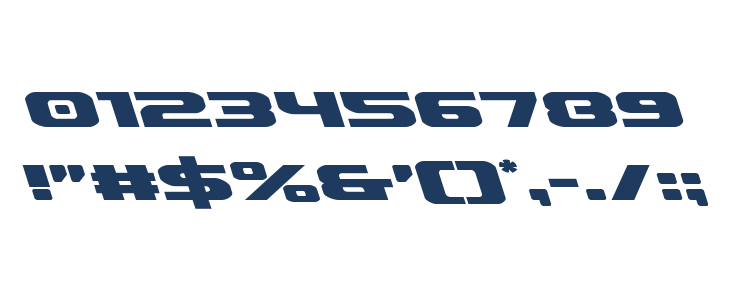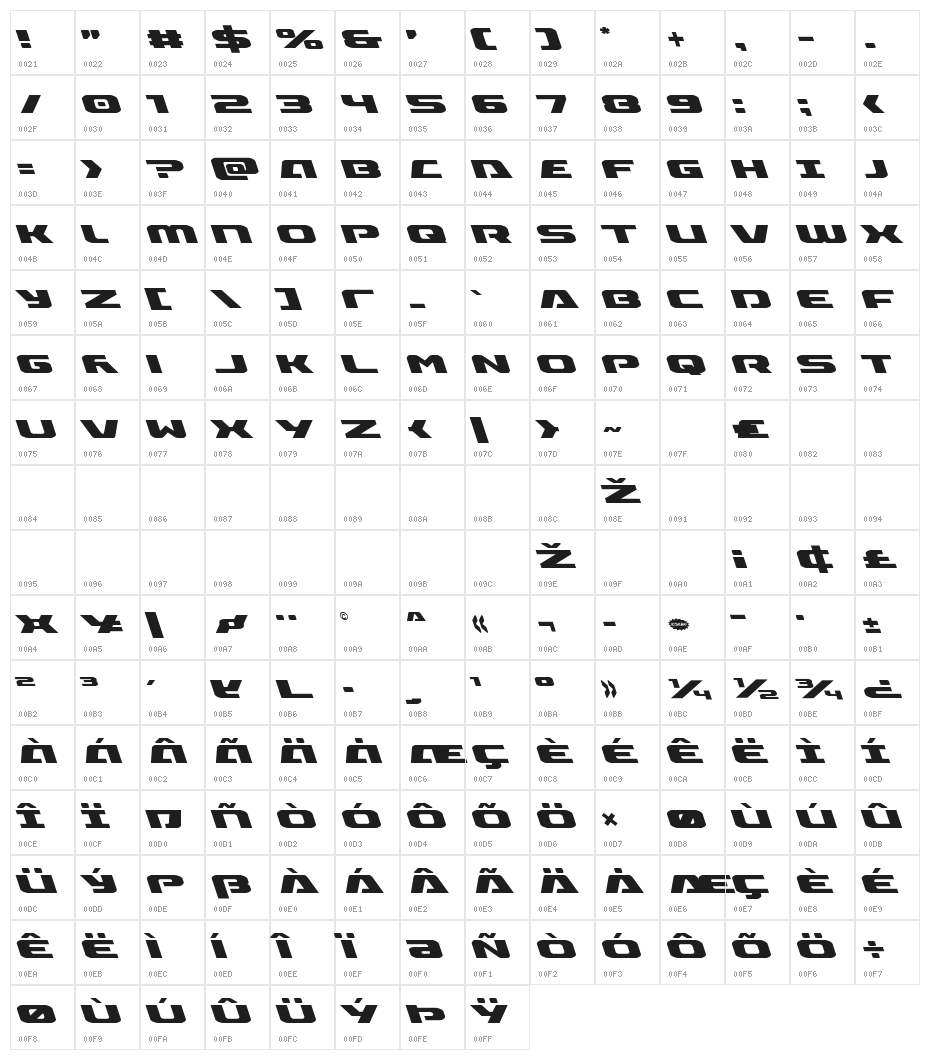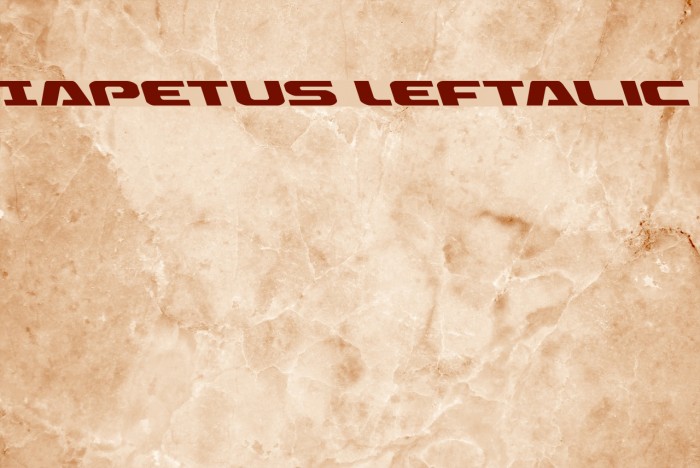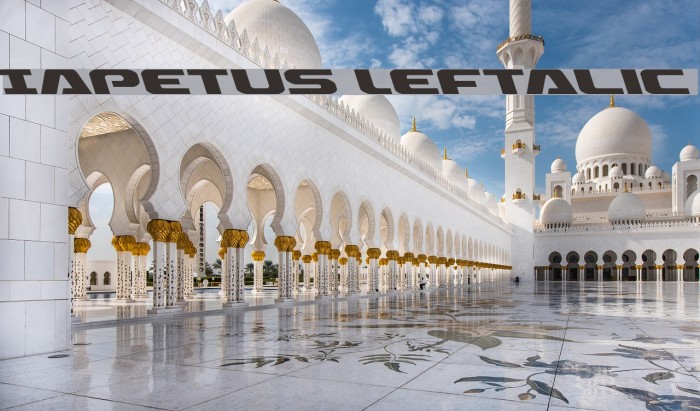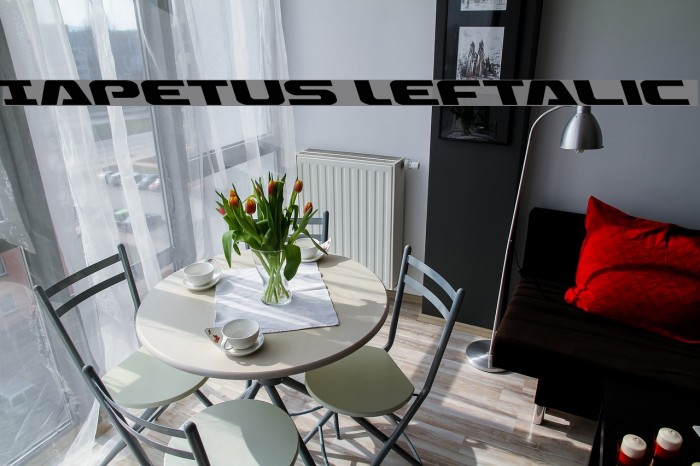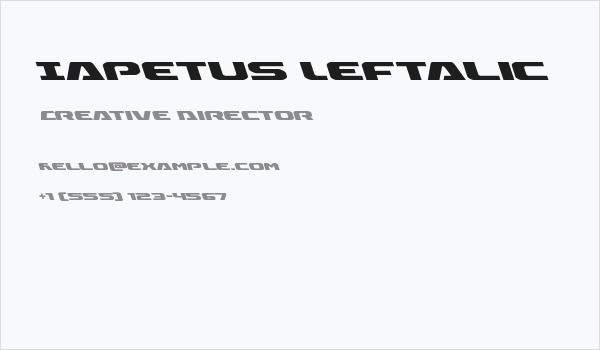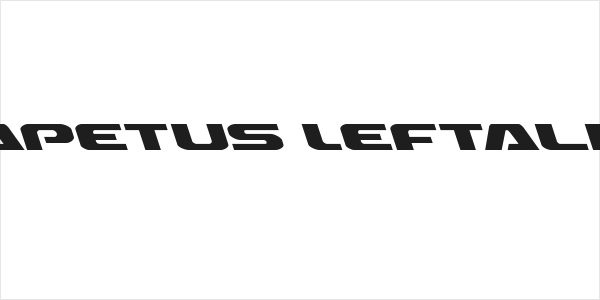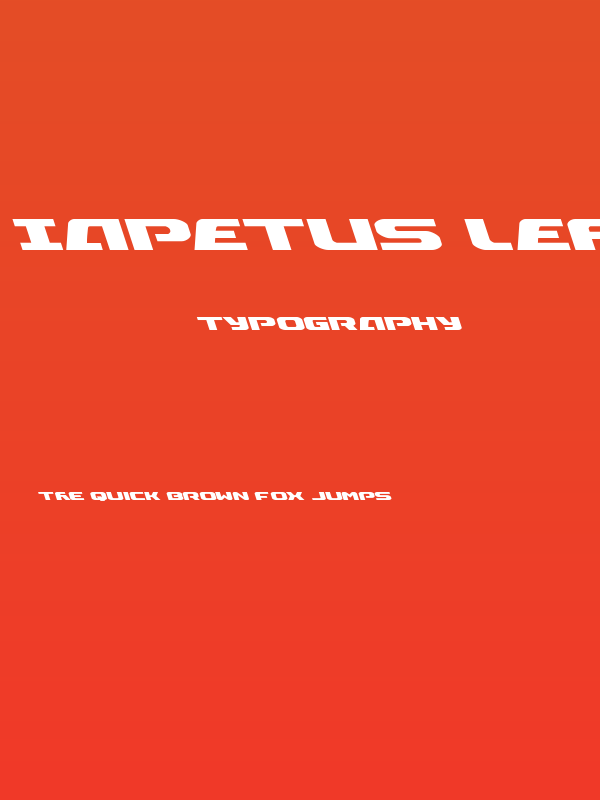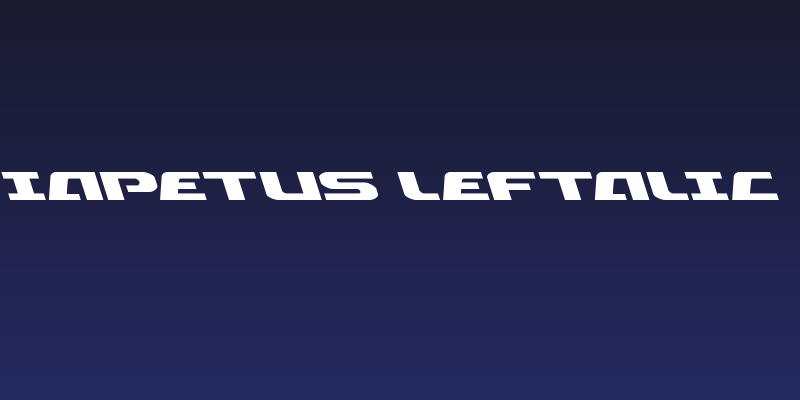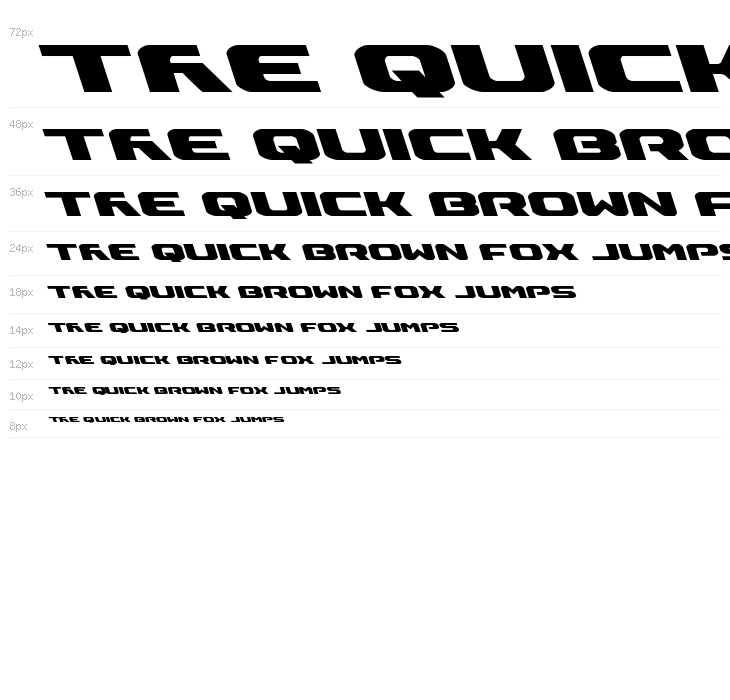
Iapetus Leftalic Font
Iapetus Leftalic Description
This font features a bold, futuristic design with angular cuts and a strong geometric presence. The characters are wide and have a distinct slant, giving them a dynamic and forward-moving appearance. The uppercase letters are particularly striking, with sharp edges and a blocky style that conveys strength and modernity. The lowercase letters maintain the same boldness, ensuring consistency across the typeface. Numbers and special characters are equally robust, making this font versatile for various applications. Its unique style is ideal for projects that require a modern, tech-inspired aesthetic.
| Proposed Projects | Ideal for technology branding, sci-fi movie posters, video game titles, and modern advertising campaigns. |